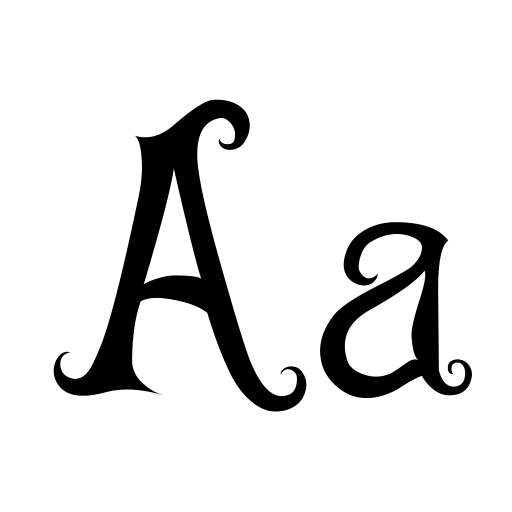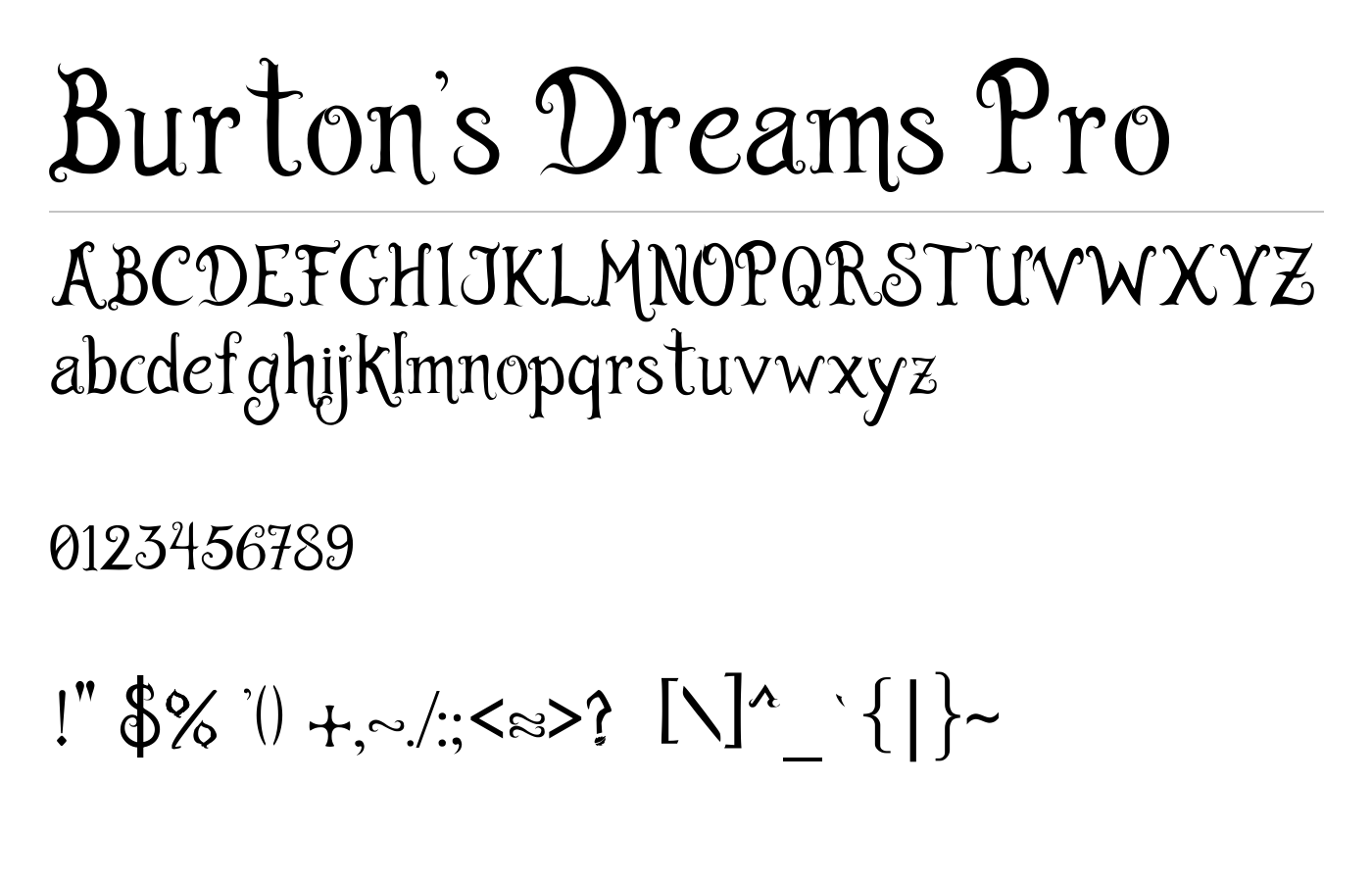
Burton's Dreams Pro is a whimsical serif font characterized by its playful, slightly irregular letterforms and delicate, bracketed serifs that add a touch of vintage charm. Its moderate contrast and quirky details make it ideal for creative, fun designs that need personality, such as invitations, posters, or branding that aims for a magical, storybook feel. This font works well in headlines and decorative uses where its unique style can really stand out.
Burton's Dreams Pro Font
About Burton's Dreams Pro Font